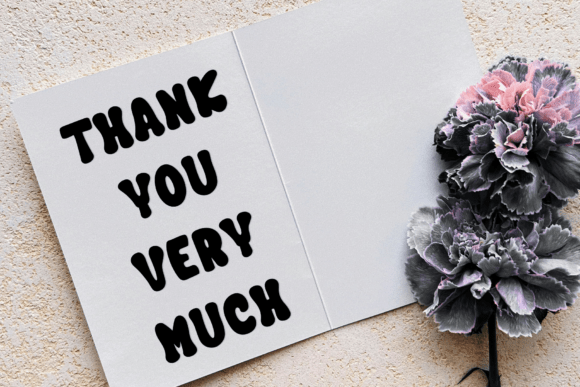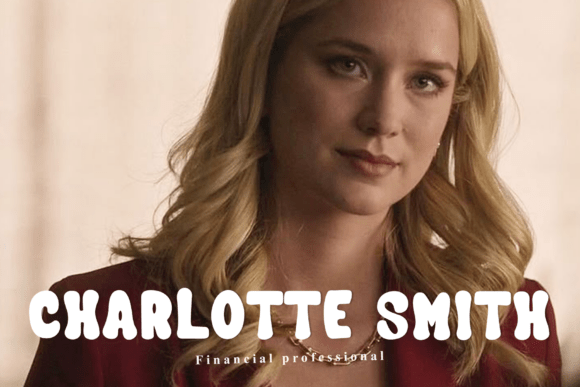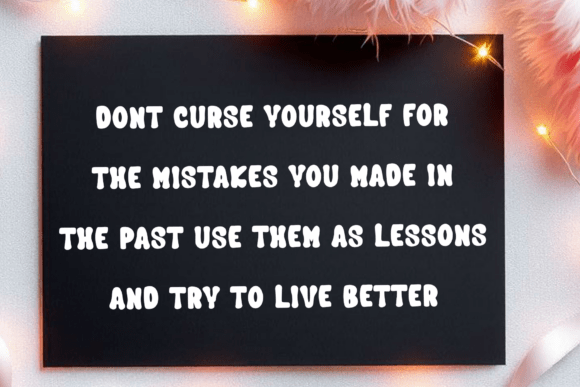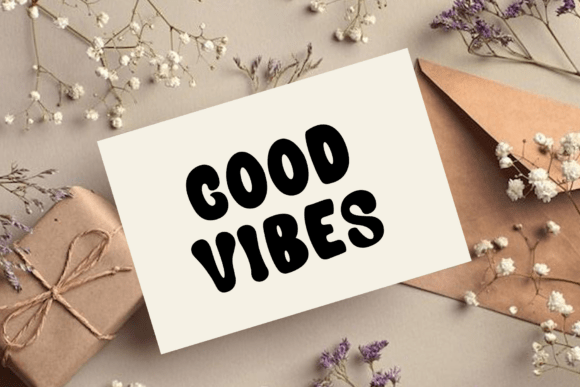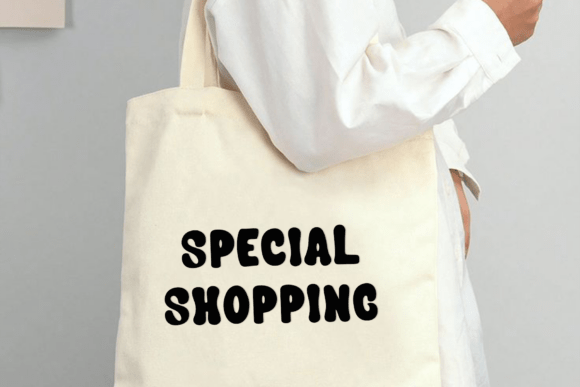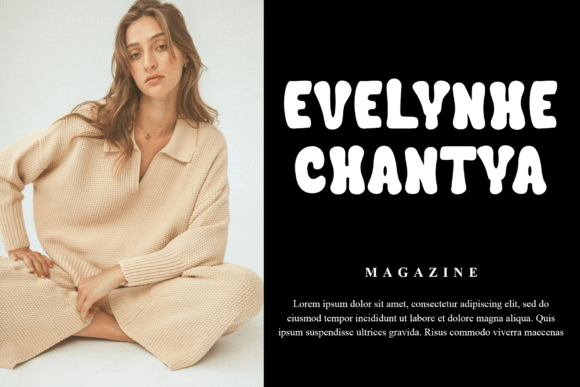
Introducing Hearted Font: The Ultimate Retro Display Font
Are you looking for a font that embodies the raw, bubbly energy of the 1970s? Look no further than Hearted Font, a massive and high-energy display font that’s perfect for designers and crafters who want to add a touch of retro flair to their projects. With its heavy, interlocking letterforms and rhythmic, wavy baseline, Hearted Font is the premier choice for high-impact retro-themed marketing, streetwear apparel design, vibrant editorial headers, and high-performance social media graphics.
The Retro Aesthetic of Hearted Font
Hearted Font is inspired by the iconic typography of the 1970s, a decade known for its bold, playful, and expressive design. The font’s distinctive, hand-sculpted character proportions and interlocking letterforms evoke the era’s retro aesthetic, while its heavy, wavy baseline adds a sense of energy and movement. Whether you’re designing a vintage-inspired poster, a streetwear apparel collection, or a social media graphic, Hearted Font is the perfect choice for adding a touch of retro charm.
Key Features of Hearted Font
• Heavy, interlocking letterforms: Hearted Font features bold, chunky letterforms that interlock to create a seamless, connected look.
• Rhythmic, wavy baseline: The font’s wavy baseline adds a sense of energy and movement, giving your designs a dynamic, playful feel.
• Distinctive, hand-sculpted character proportions: Each character in Hearted Font has been carefully crafted to create a unique, hand-sculpted look that’s reminiscent of classic retro typography.
• High-impact legibility: Despite its bold, chunky design, Hearted Font remains highly legible, making it perfect for use in headlines, titles, and other high-impact applications.
Use Cases for Hearted Font
Hearted Font is a versatile typeface that can be used in a wide range of design applications, including:
• Retro-themed marketing: Add a touch of vintage charm to your marketing materials with Hearted Font, perfect for promoting products or services that evoke a retro vibe.
• Streetwear apparel design: Hearted Font is a natural fit for streetwear apparel design, adding a bold, eye-catching touch to t-shirts, hoodies, and other fashion items.
• Vibrant editorial headers: Use Hearted Font to add a pop of color and energy to your editorial headers, perfect for magazines, blogs, and other publications.
• High-performance social media graphics: Hearted Font is perfect for creating high-impact social media graphics that demand attention, whether you’re promoting a product, service, or event.
Tips for Using Hearted Font
To get the most out of Hearted Font, here are a few tips to keep in mind:
• Use it boldly: Hearted Font is designed to make a statement, so don’t be afraid to use it boldly and prominently in your designs.
• Experiment with color: The font’s bold, chunky design makes it perfect for use with bright, bold colors that add to its retro aesthetic.
• Mix and match: Don’t be afraid to mix and match Hearted Font with other fonts and design elements to create a unique, eye-catching look.